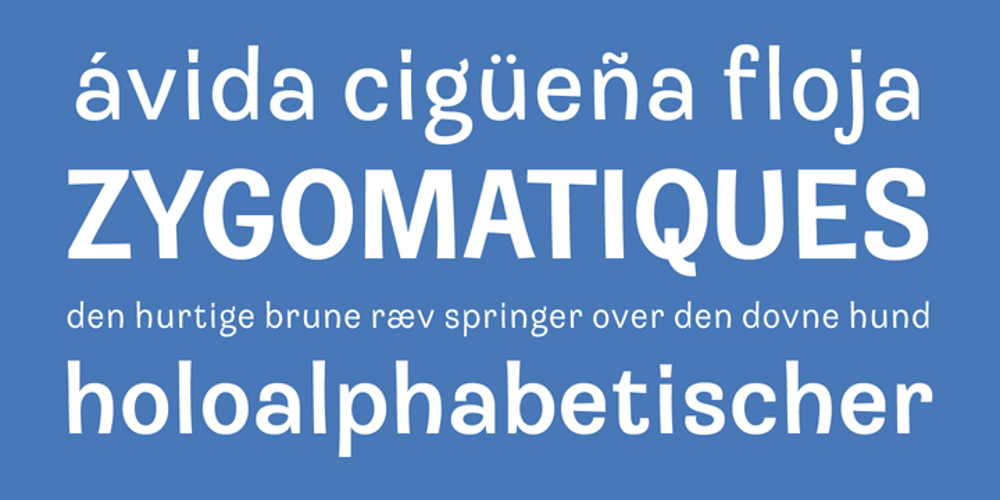
Jesterday
Jesterday font
Jesterday Font Family was designed by Tjarda Koster and published by Jelloween. Jesterday contains 9 styles and family package options. Jesterday is a four weight – light, regular, medium and bold – type family that’s suitable for headlines but works great in informal body-copy as well. Even at a very small size it’s still very much legible. For added fun, Jesterday has been subtly enhanced with OpenType ligatures. Can you spot them? Download the demo version to try Jesterday for free.